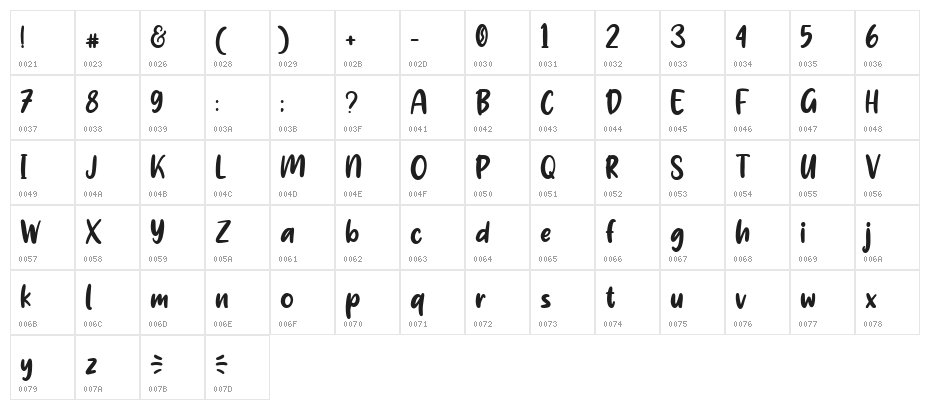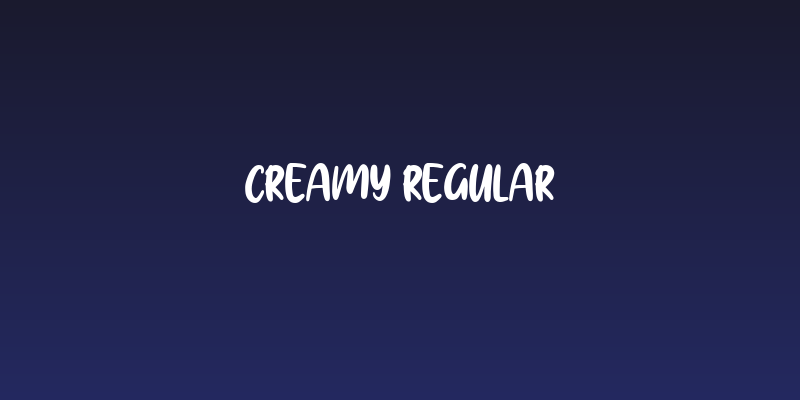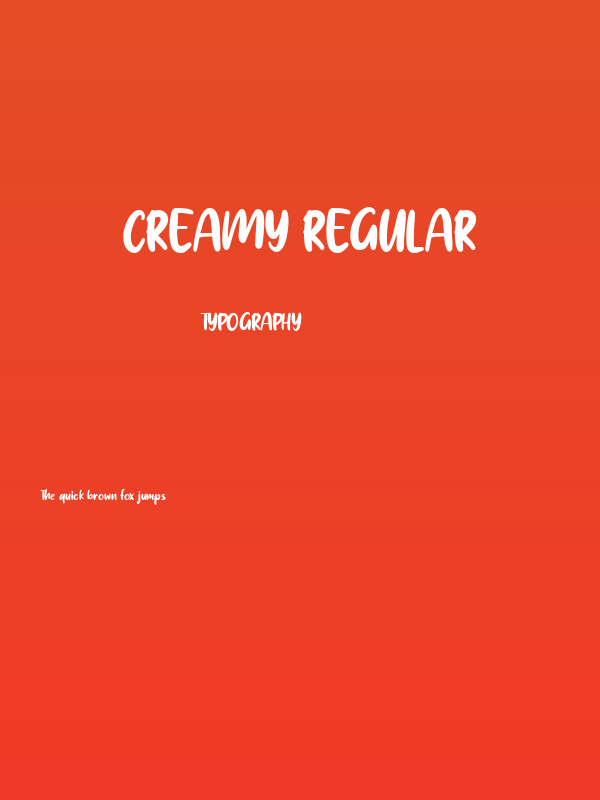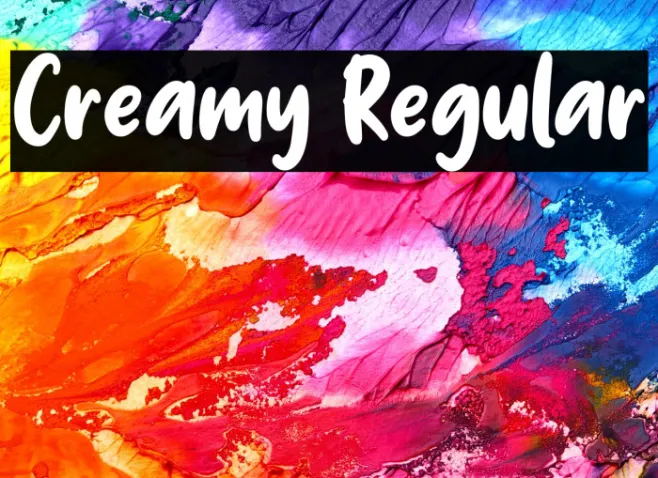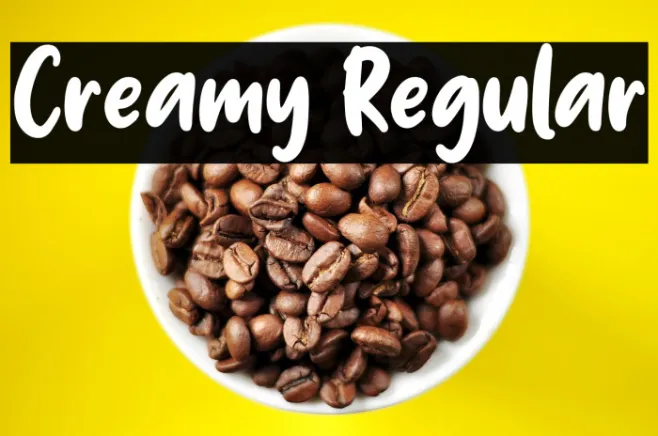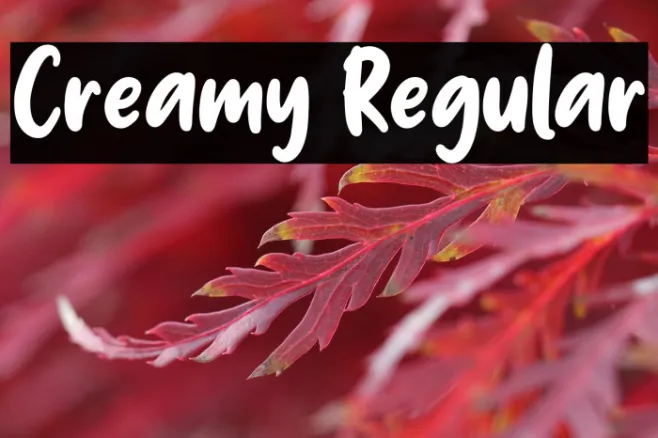
Creamy Regular Font
Creamy Regular Description
This font features a playful and bold handwritten style, characterized by its smooth, rounded edges and slightly irregular letterforms that give it a casual, friendly appearance. The uppercase and lowercase letters maintain a consistent flow, with a moderate weight that ensures readability while adding a touch of personality. The numbers and special characters follow the same aesthetic, making the font versatile for various applications. Its informal yet clear design makes it suitable for projects that require a personal touch, such as invitations, greeting cards, or social media graphics.
| Proposed Projects | Ideal for invitations, greeting cards, social media graphics, and personal branding. |